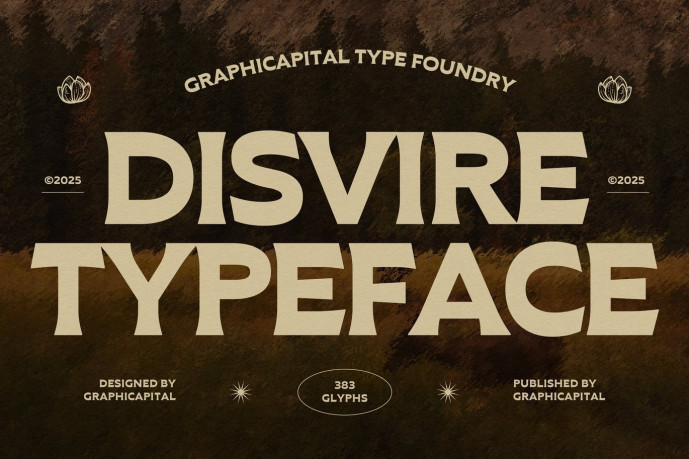
Disvire Font
Designer: Graphicapital
Disvire Font is a retro-modern display font with bold, contrasting letters and an expressive character. Combining vintage charm with a contemporary touch, it’s ideal for designs that are bold, artistic, and full of personality.